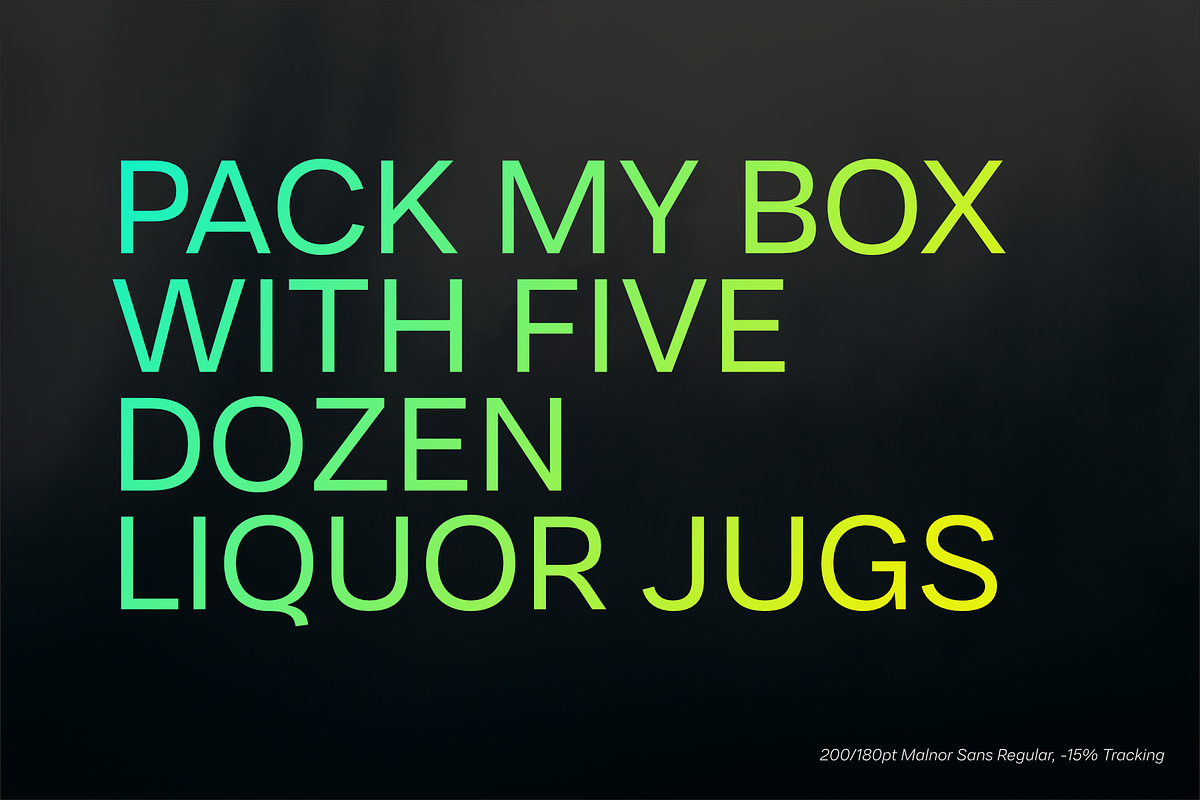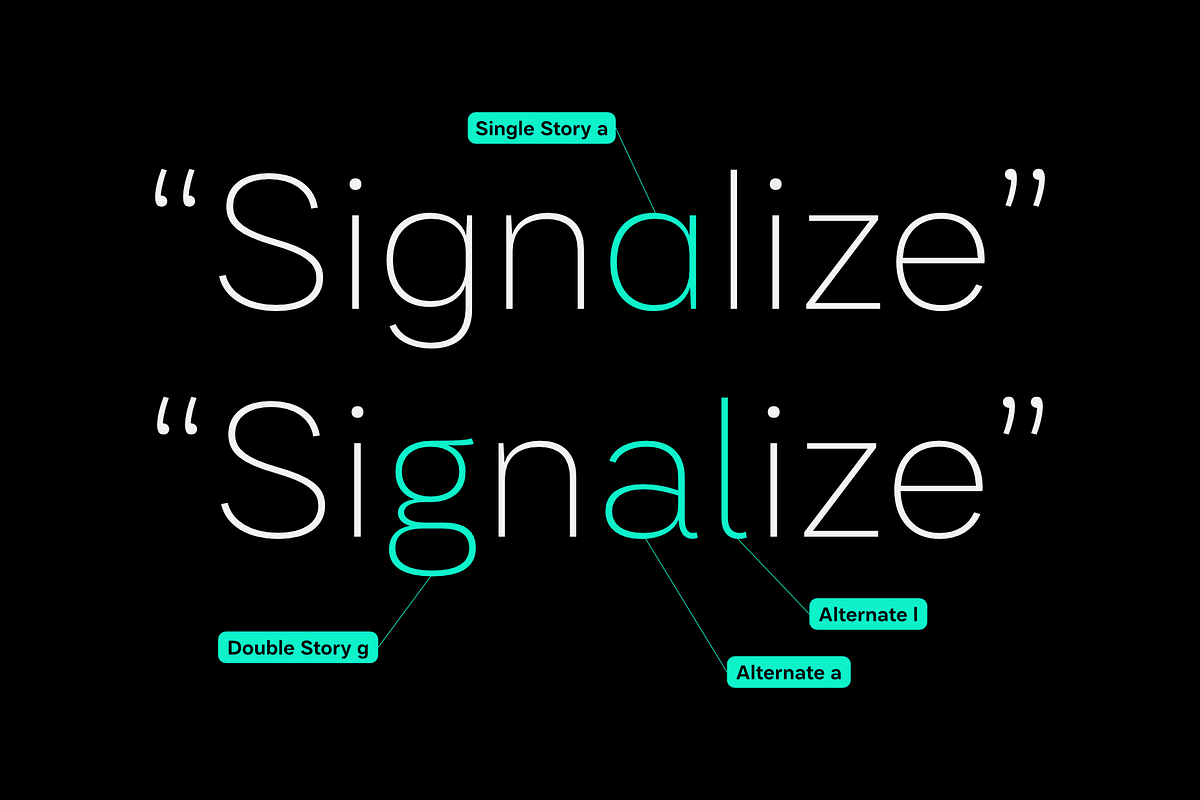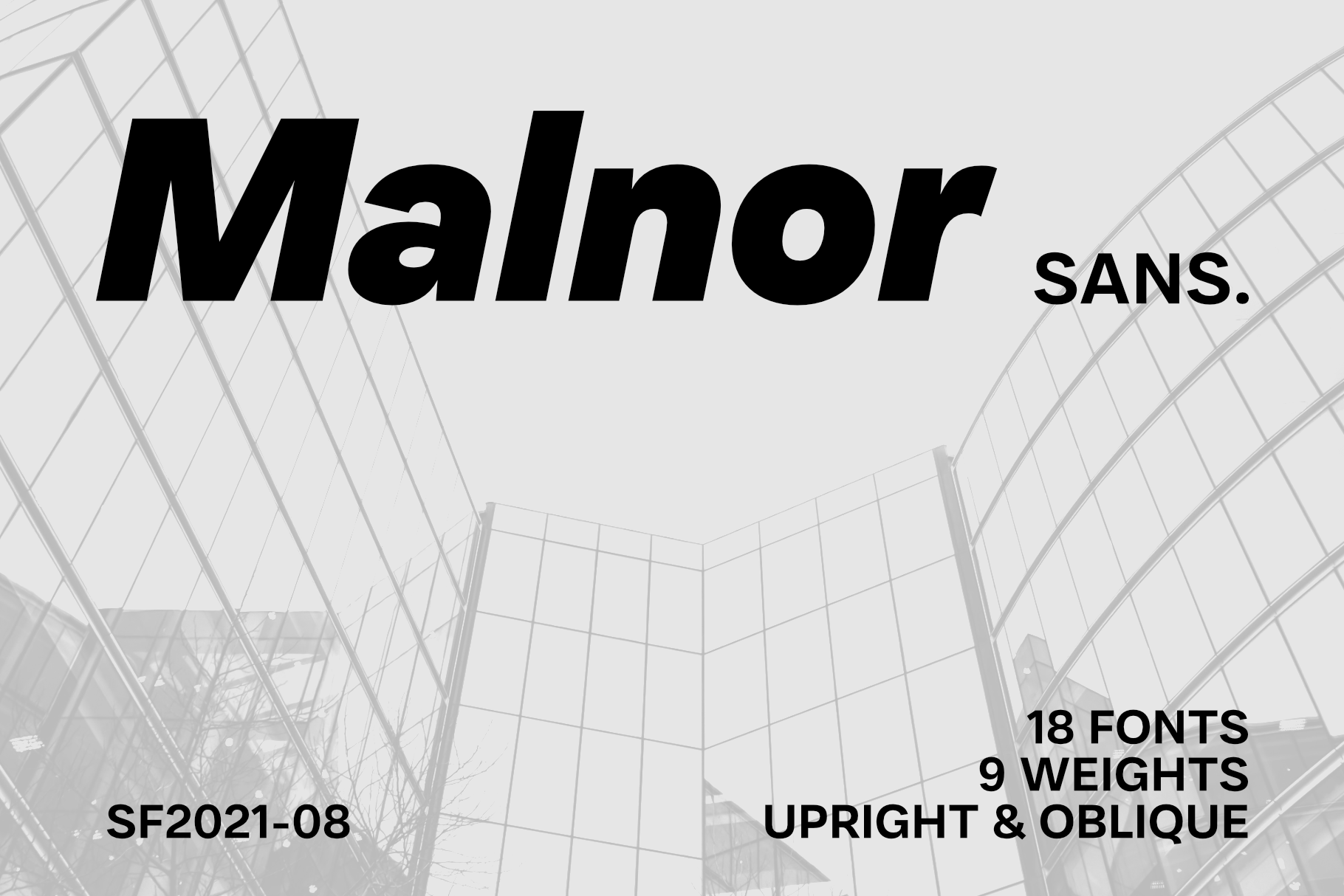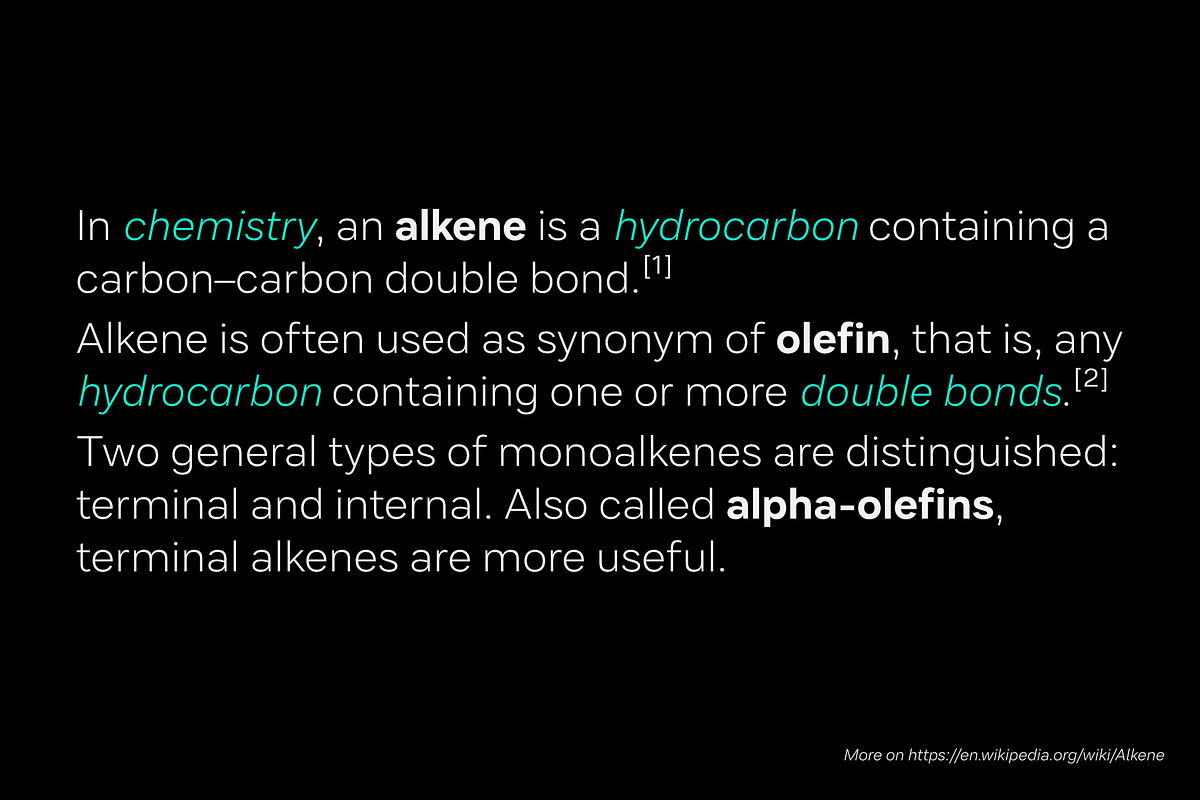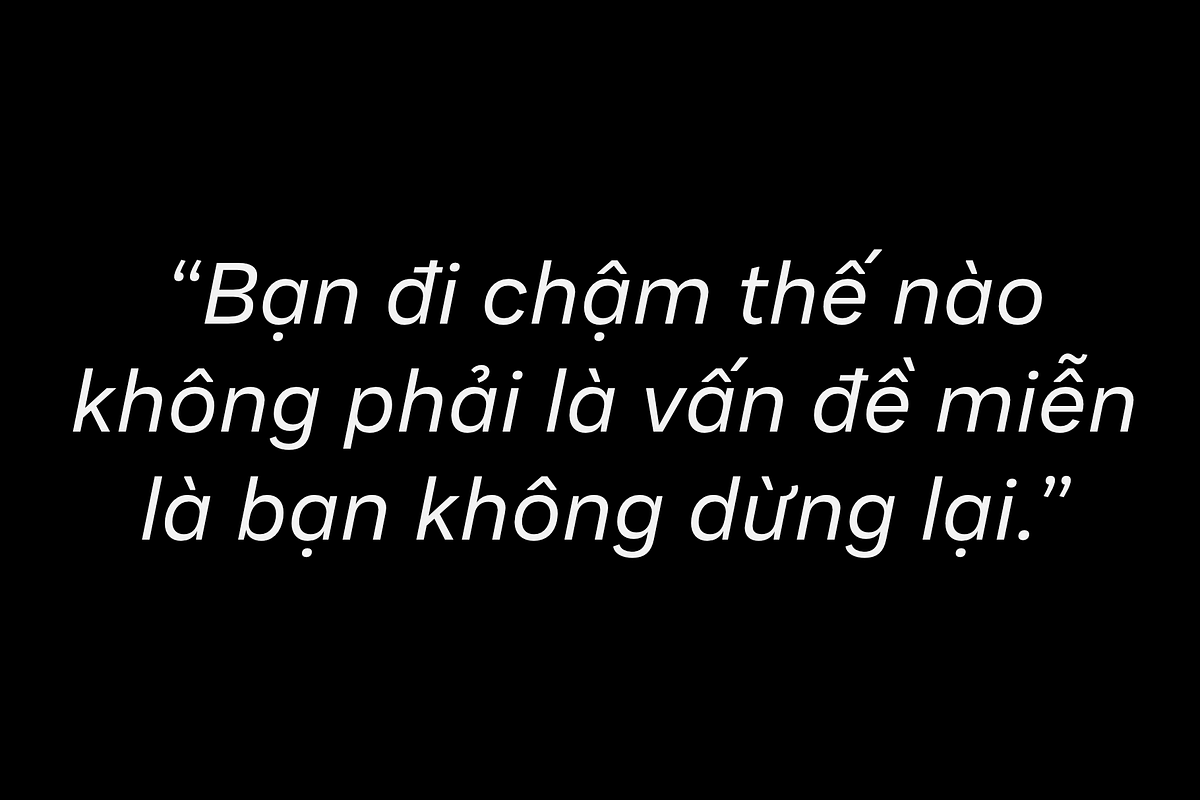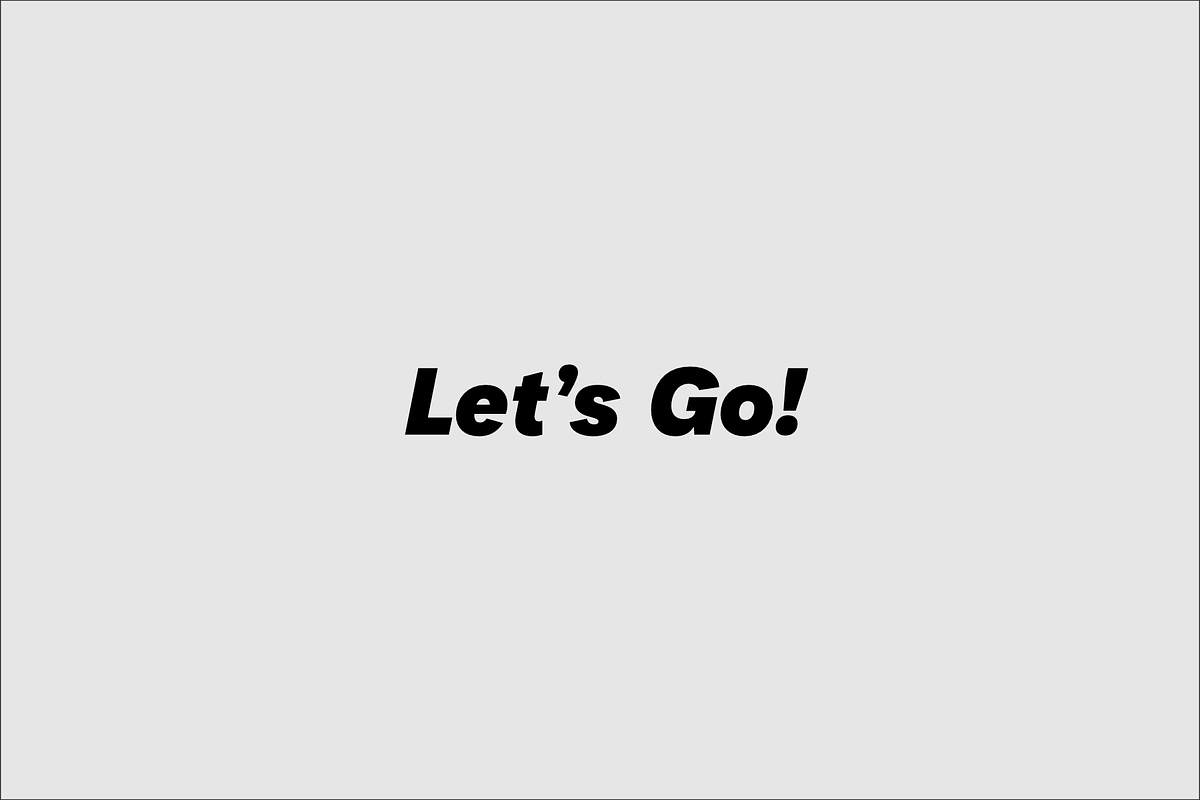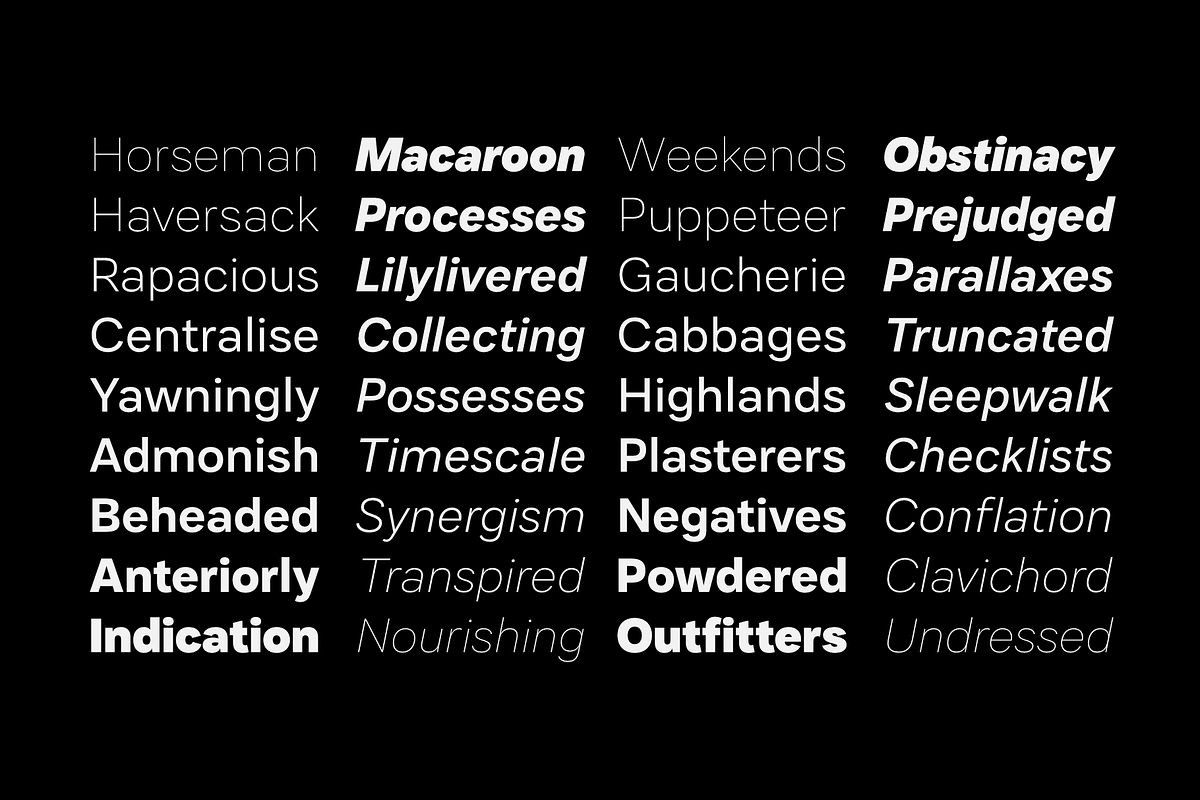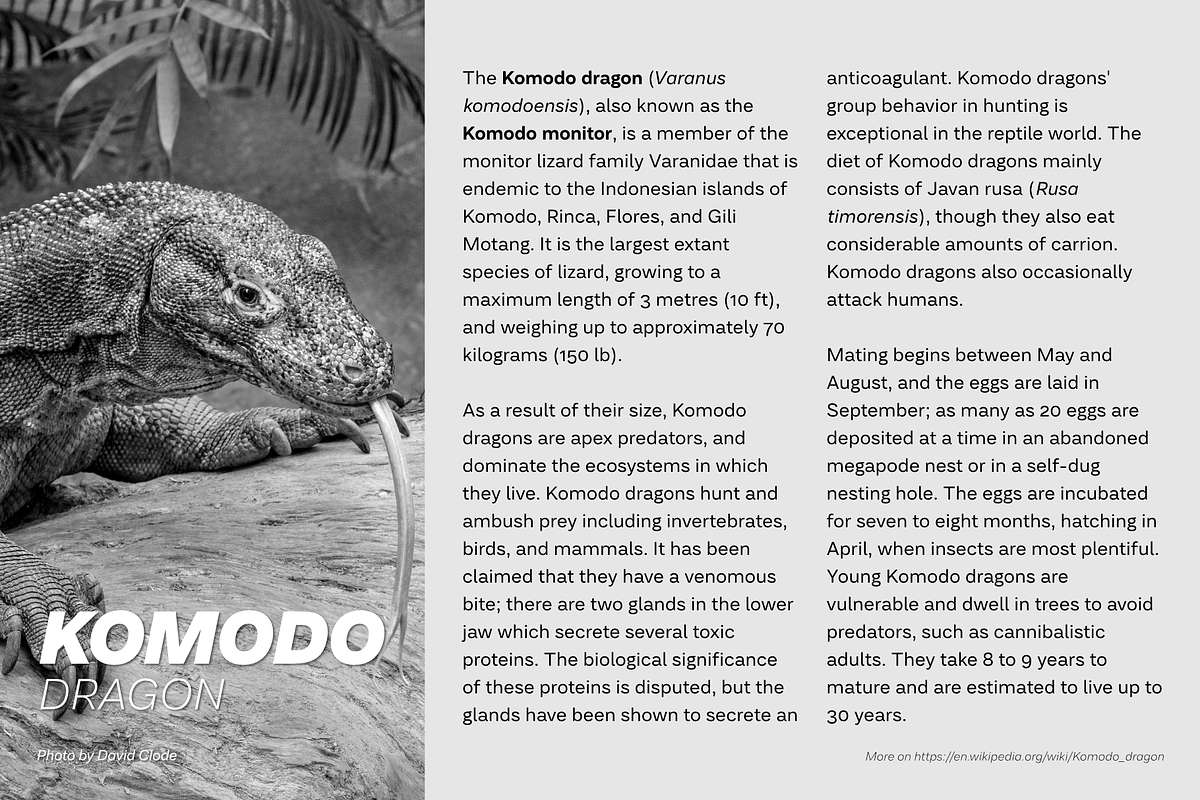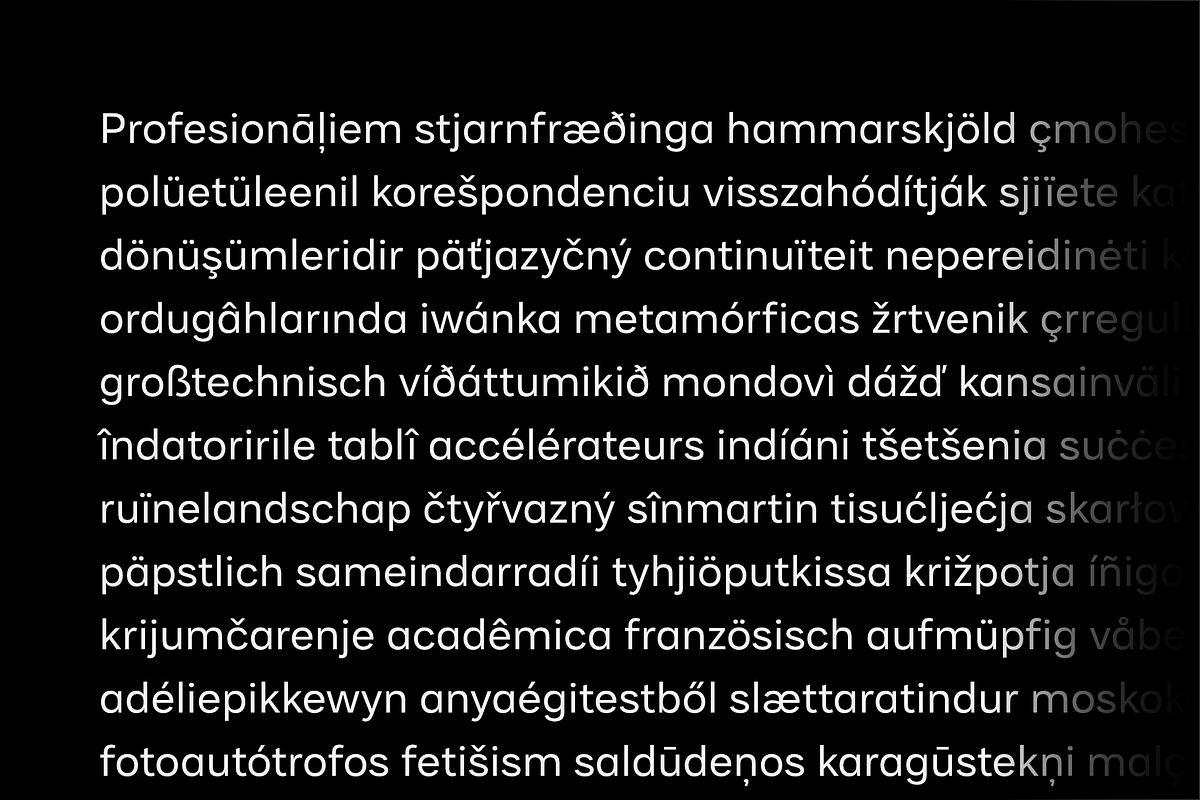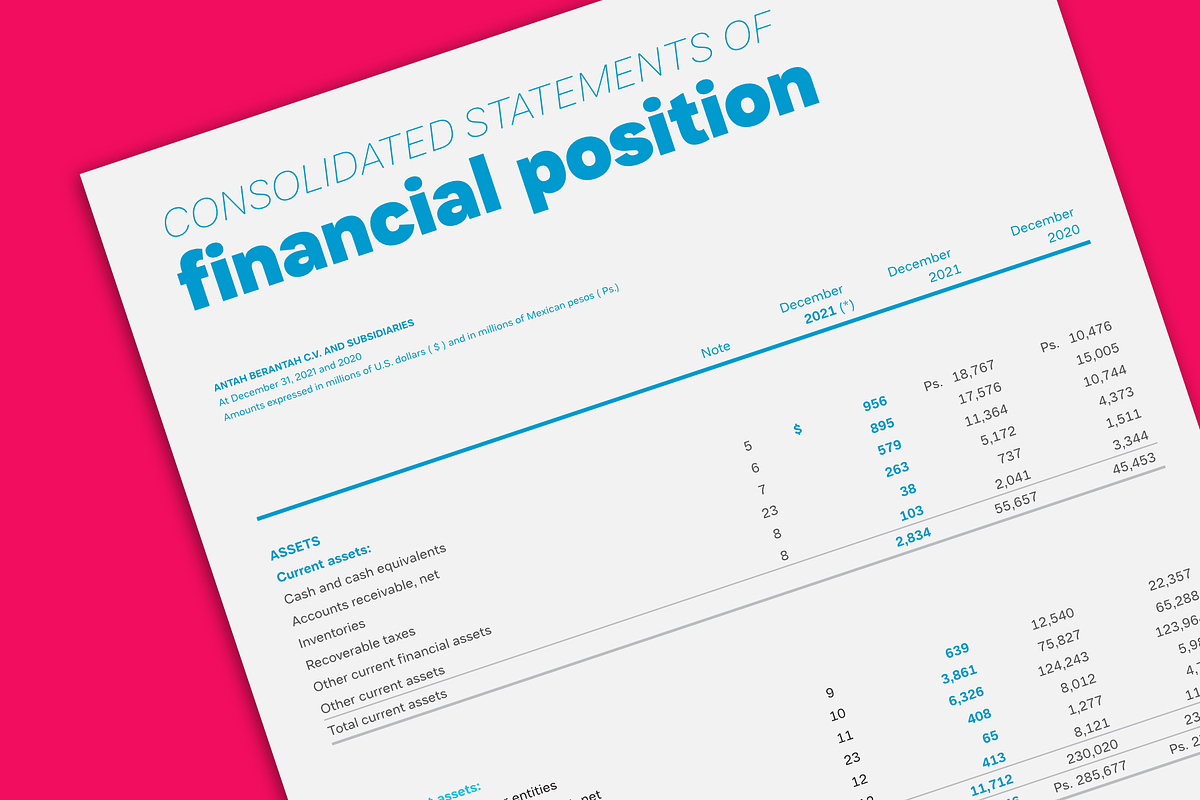
Malnor Sans Font Family
Malnor Sans is a normal sans serif family of 18 fonts. With a modern style or neo-grotesque, Malnor sans has balanced proportions in every letter, and it's clean, minimal and cool. There are several alternative letters that can be used in both upright and oblique styles. Single story 'a' can give a more geometric impression, even though it is not purely geometric. There is also an alternative double story 'a' with a tail, a double story 'g' and an alternative 'l' that can be applied together via the 'salt' or 'stylistic sets' features for a slightly warmer feel.
Malnor Sans currently has around 900 glyphs, including diacritical marks, that support a broad Latin-based language.
*OpenType features: Access All Alternates, Contextual Alternates, Glyph Composition / Decomposition, Denominators, Fractions, Kerning, Lining Figures, Localized Forms, Mark Positioning, Mark to Mark Positioning, Numerators, Oldstyle Figures, Ordinals, Proportional Figures, Stylistic Alternates, Scientific Inferiors, Stylistic Set 1, Stylistic Set 2, Stylistic Set 3, Stylistic Set 4, Stylistic Set 5, Subscript, Superscript, Tabular Figures